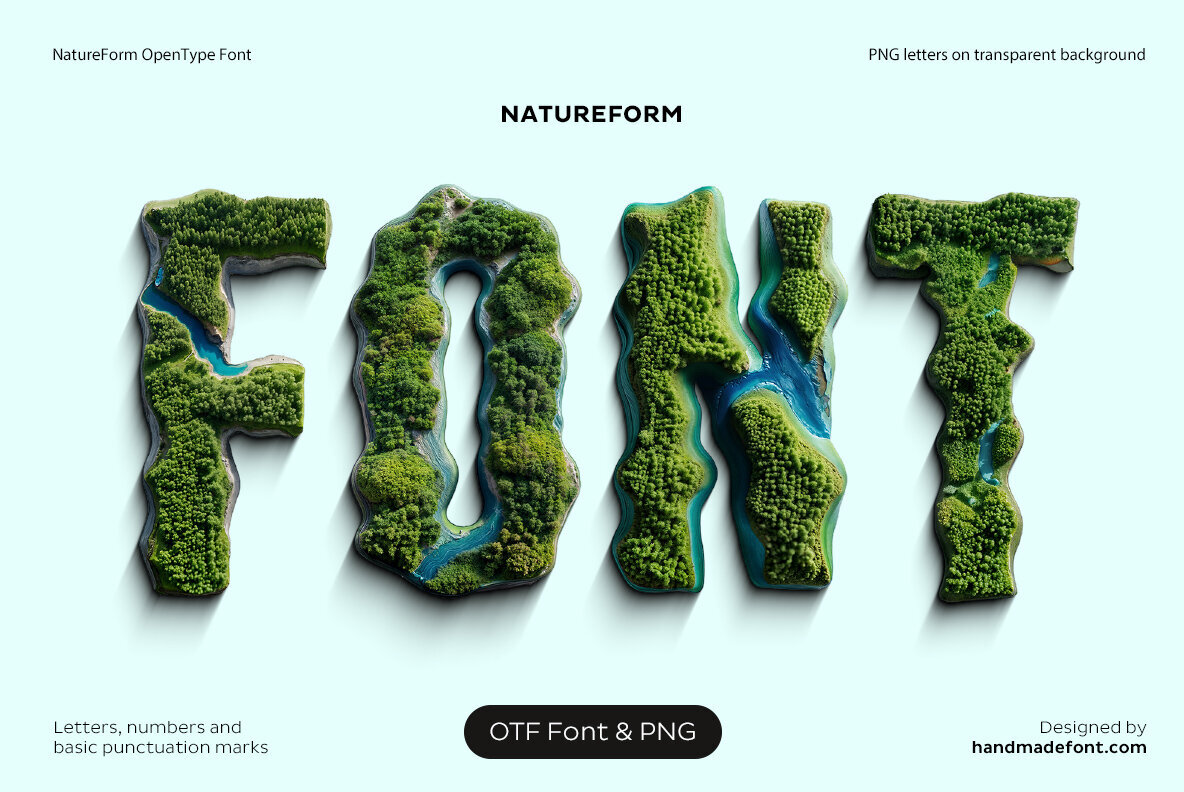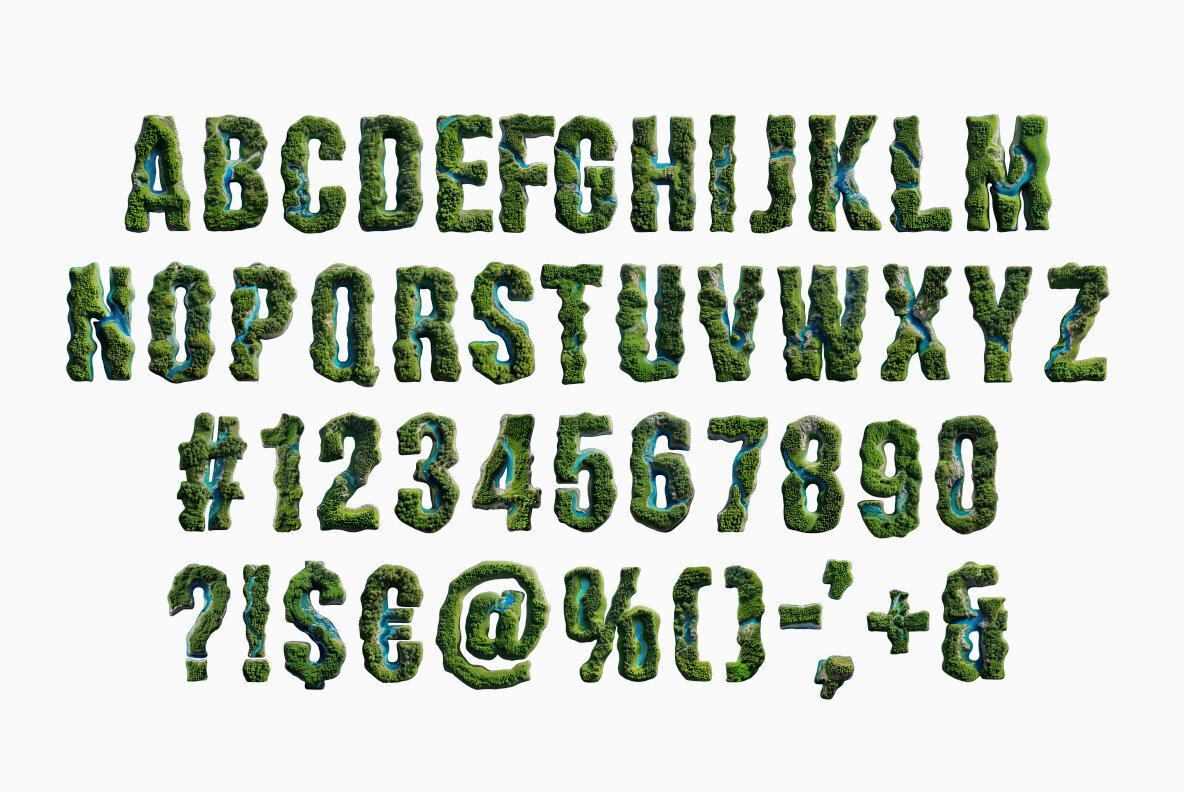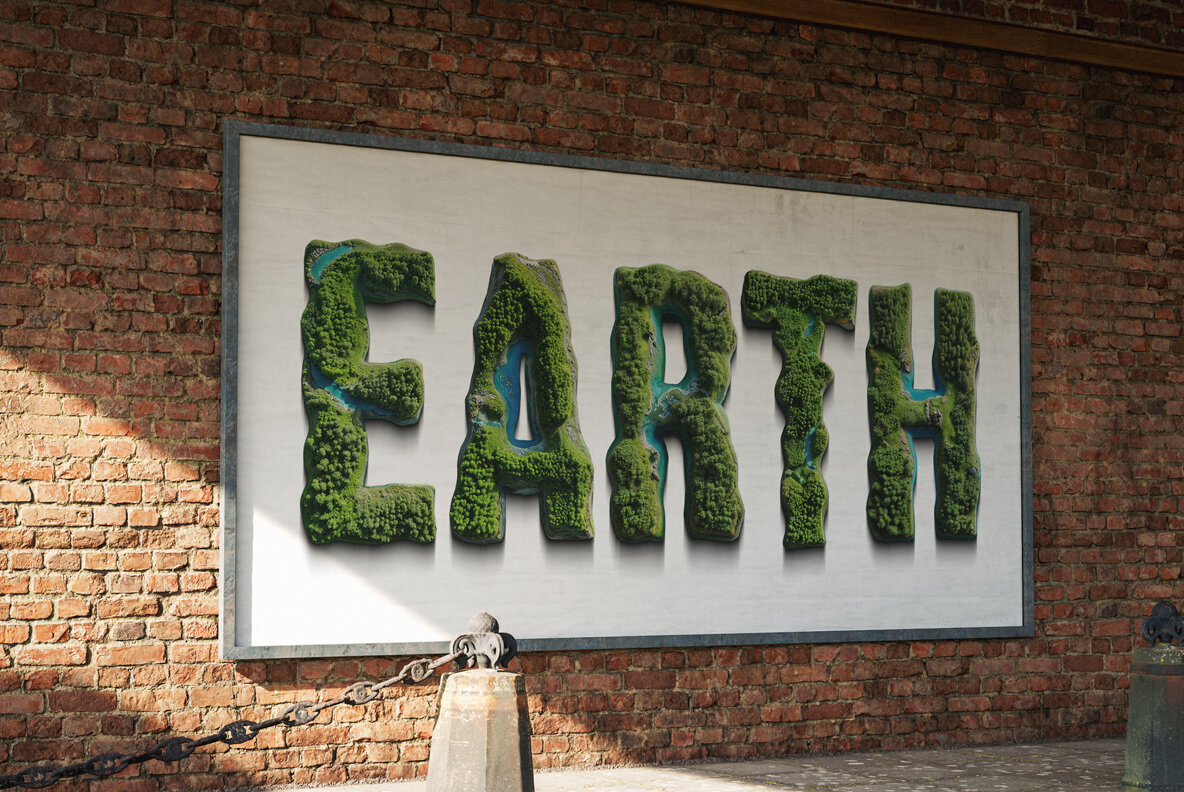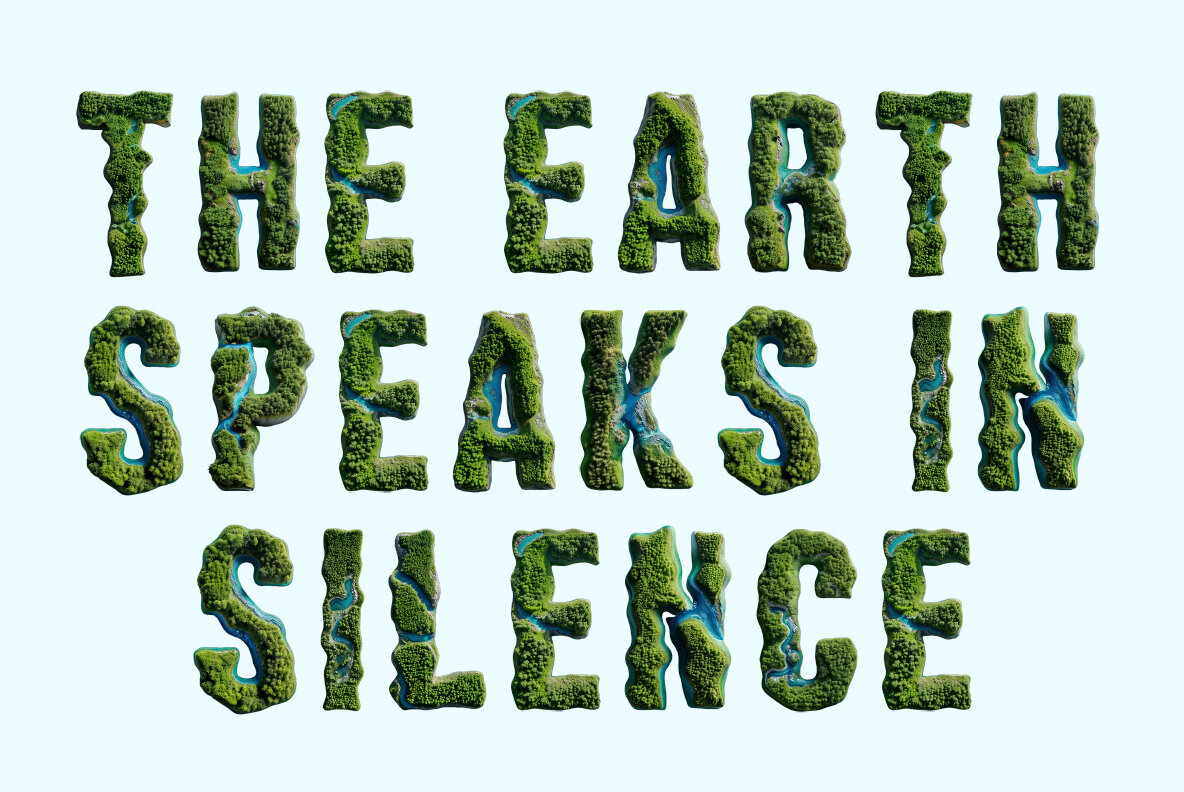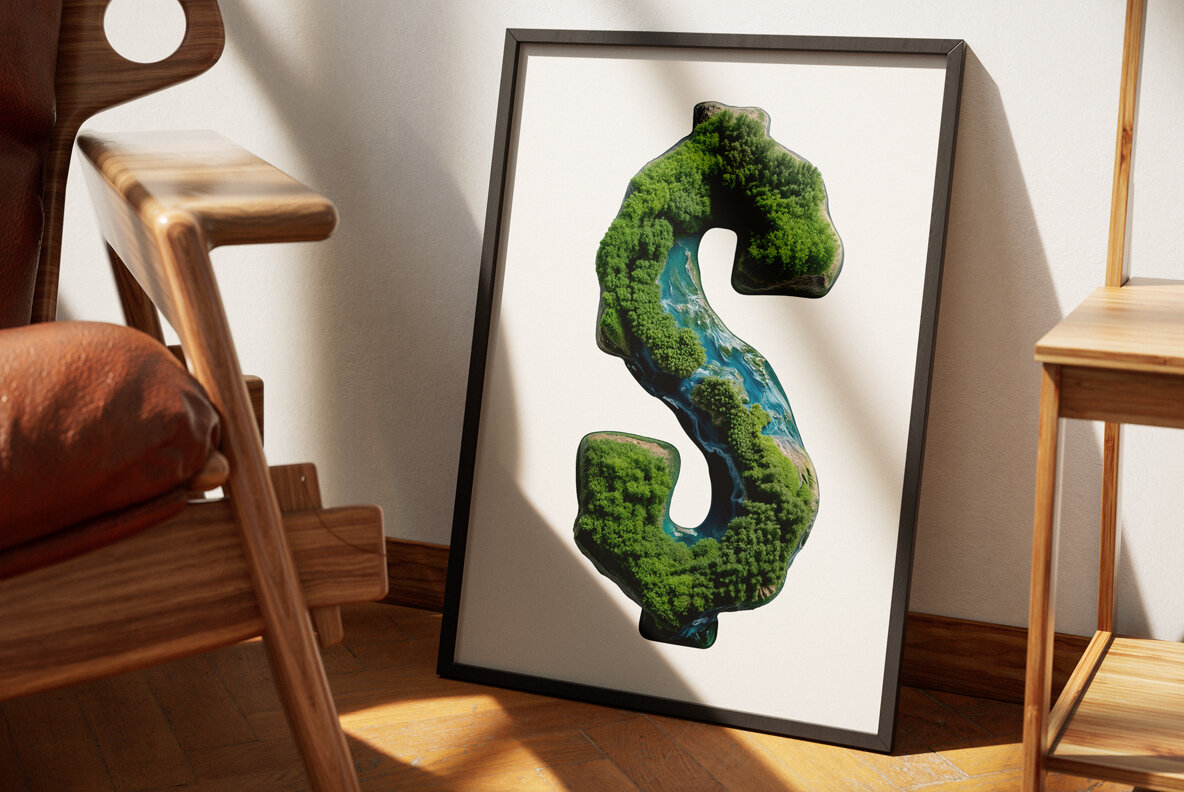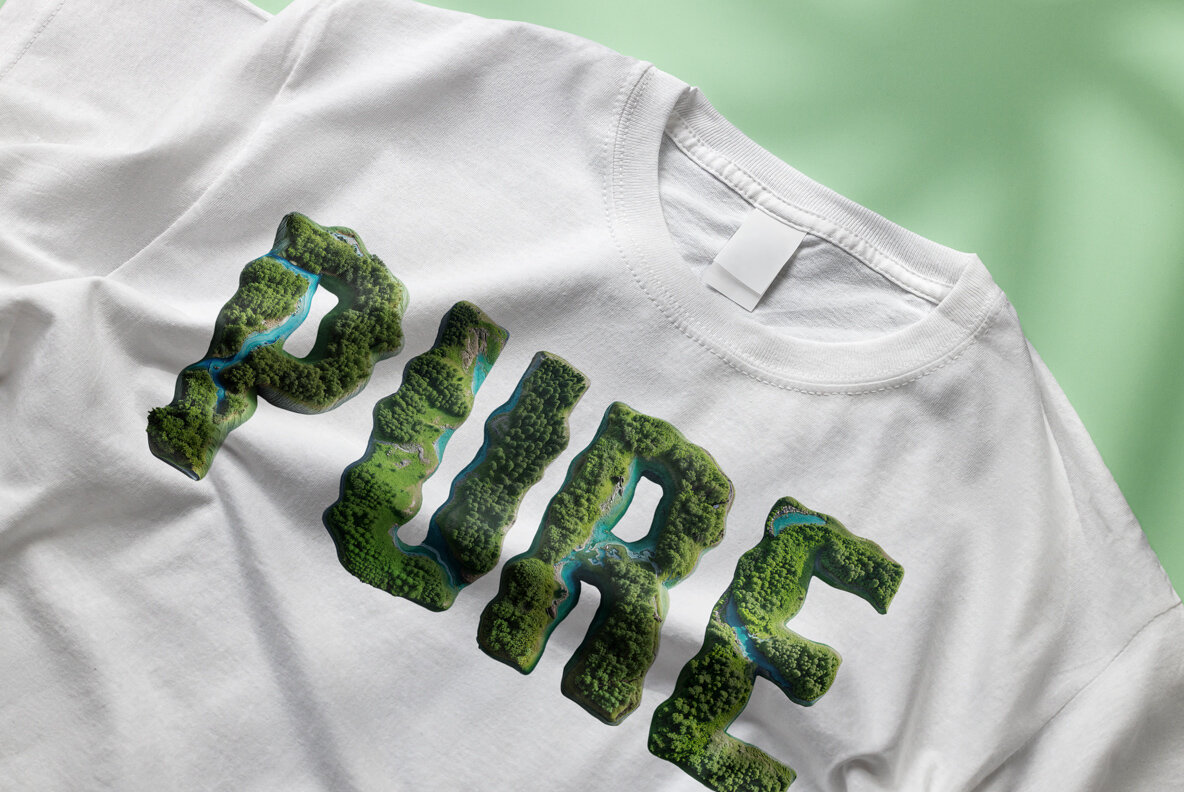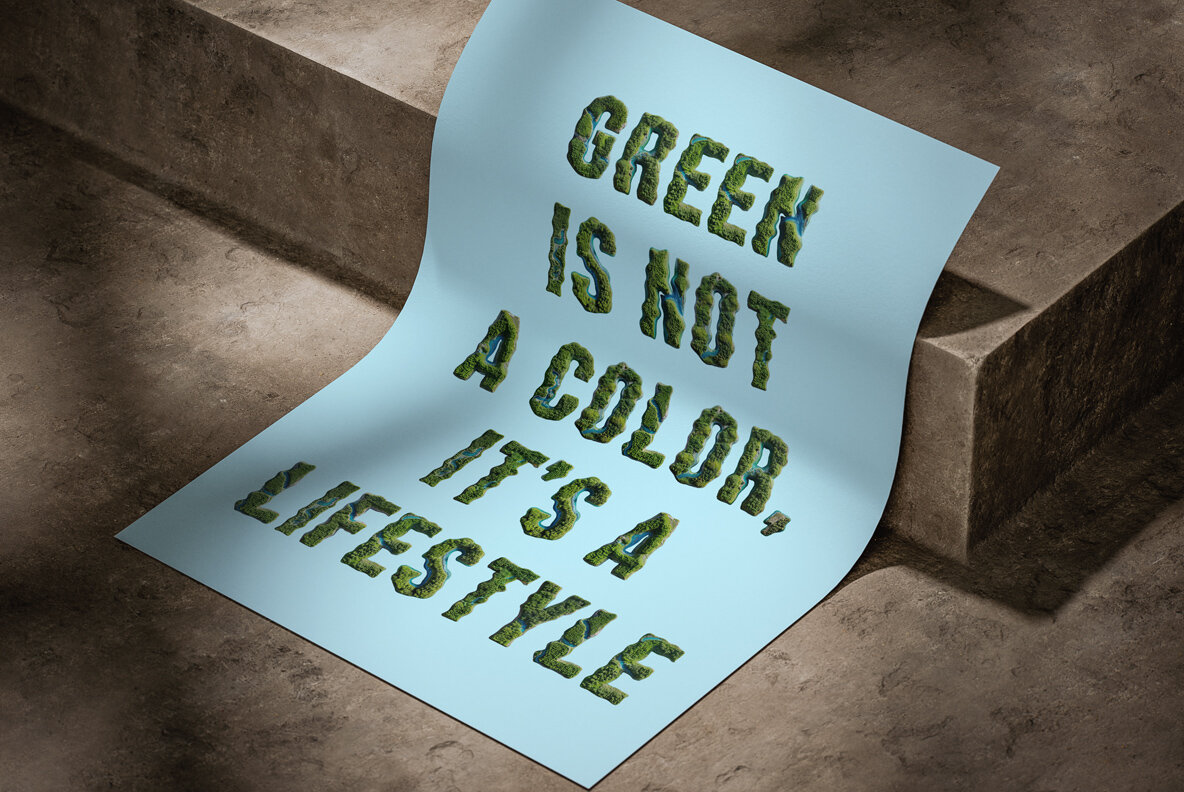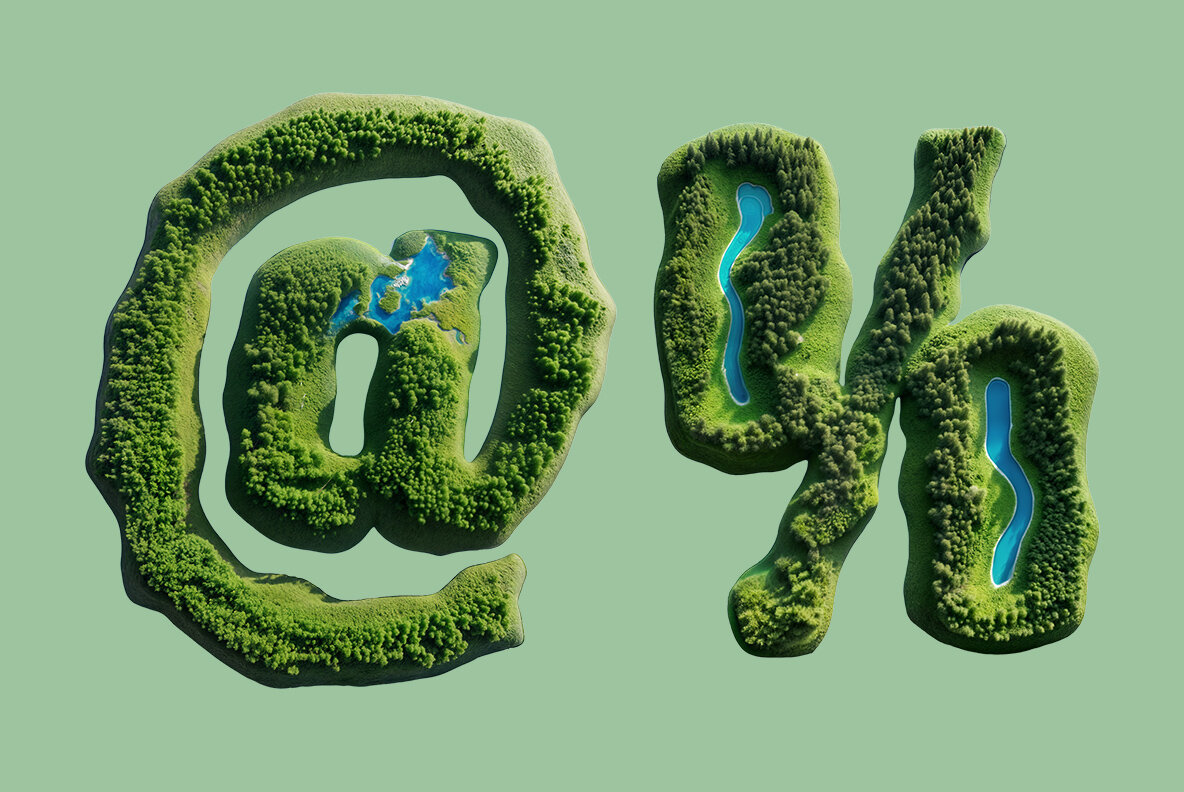
NatureForm Font is a spectacular blend of nature and design, where each letter becomes a miniature world filled with vibrant rivers and lush greenery. Ideal for eco-enthusiasts and those seeking to infuse their projects with a natural flair, this font offers an organic and lively aesthetic. Whether you're advocating for environmental causes or designing posters for a farmer's market, NatureForm brings a verdant touch to your typography.NatureForm: Embrace the Forest in Your Text